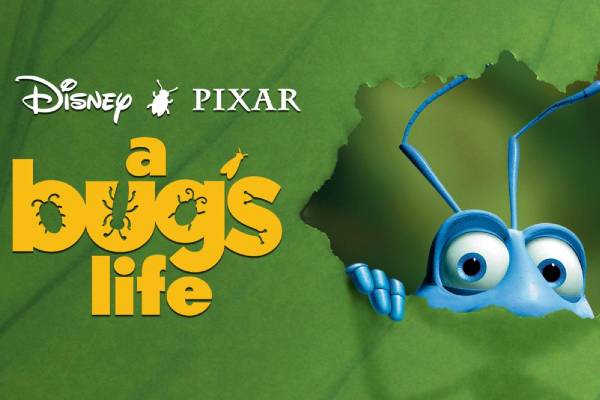
A Bug’s Life is a 1998 Pixar animated film about Flik, an inventive ant who searches for help to protect his colony from grasshoppers. The main characters include Flik, Princess Atta, Dot, Hopper, and the circus bugs. It was Pixar’s second feature-length animated movie. More than 25 years after it's initial release it's still hugely popular with audiences all around the world.
The fan-made A Bug’s Life font was designed by Filmhimmel and uses lettering inspired by the film’s official logo. Click on the link below to view the full character set for this typeface, and download your own free copy.
The lettering used in the official A Bug’s Life logo / advertising material has a playful, rounded, and colorful appearance with soft curves and friendly shapes. The design team created it with a bright green and yellow style that aptly reflects the film’s natural setting and lighthearted animated adventure.